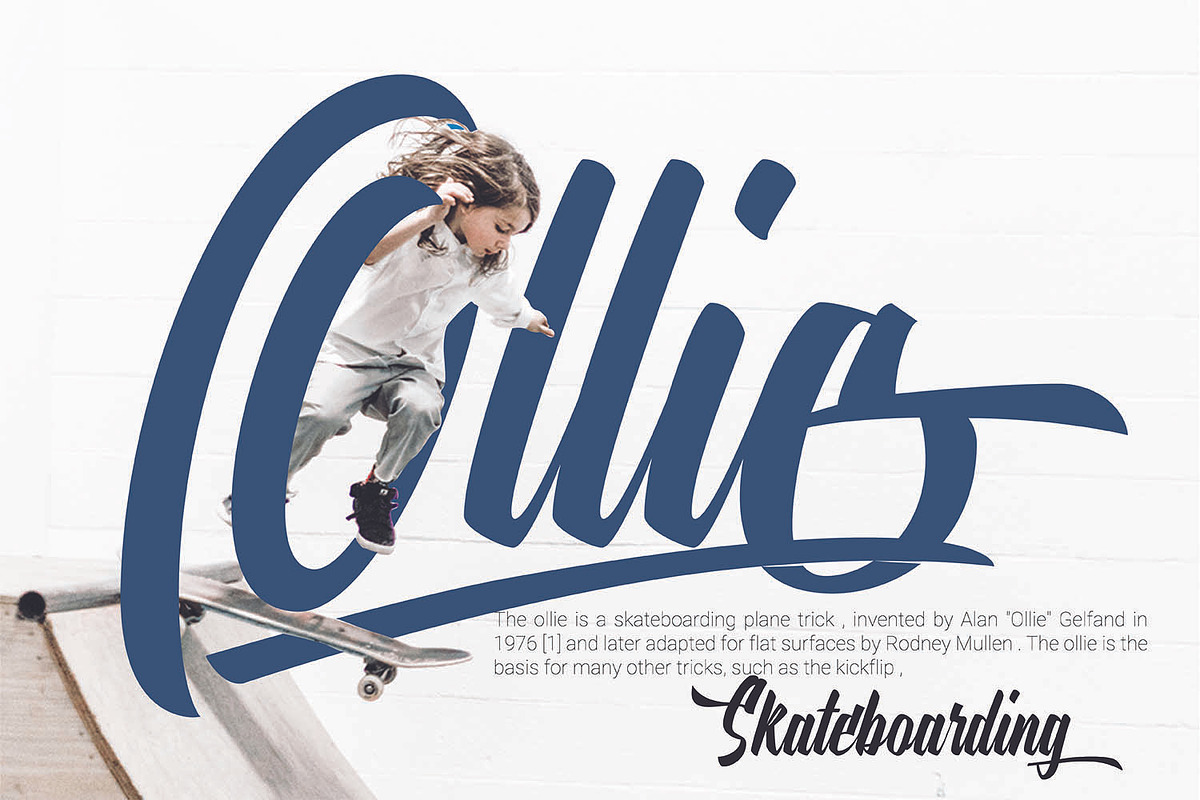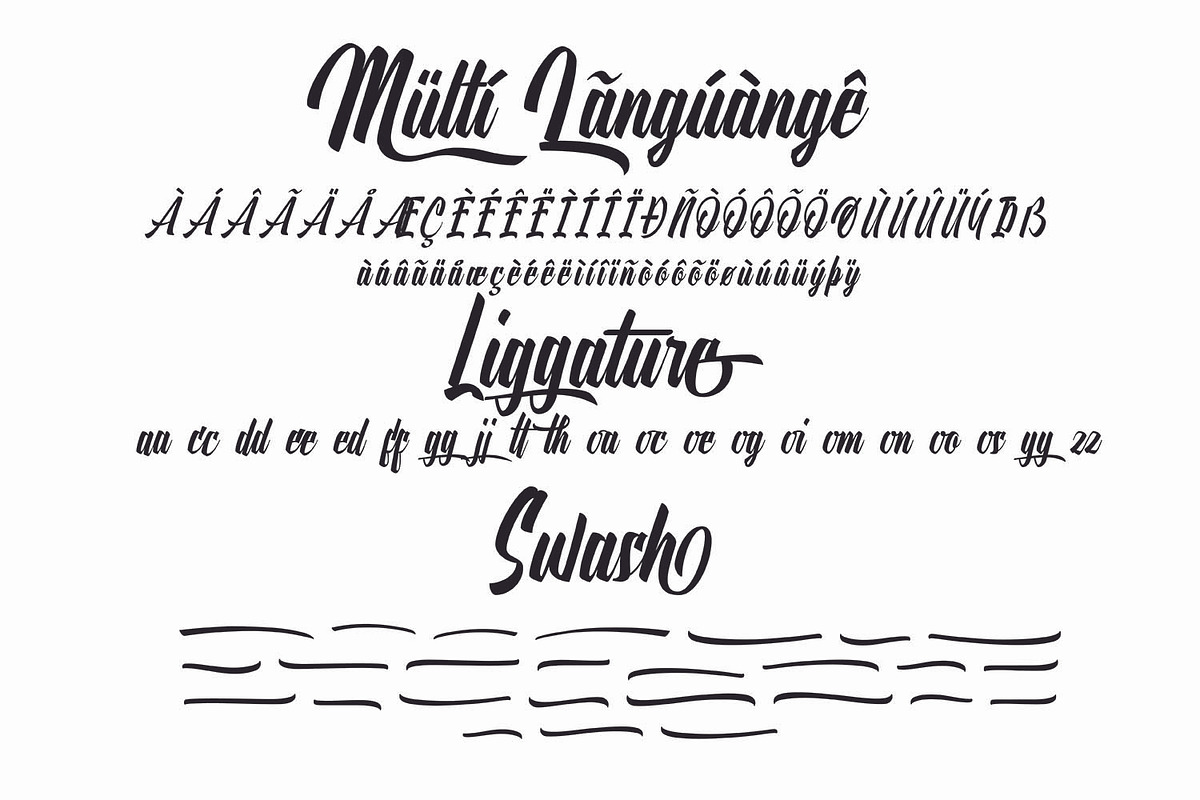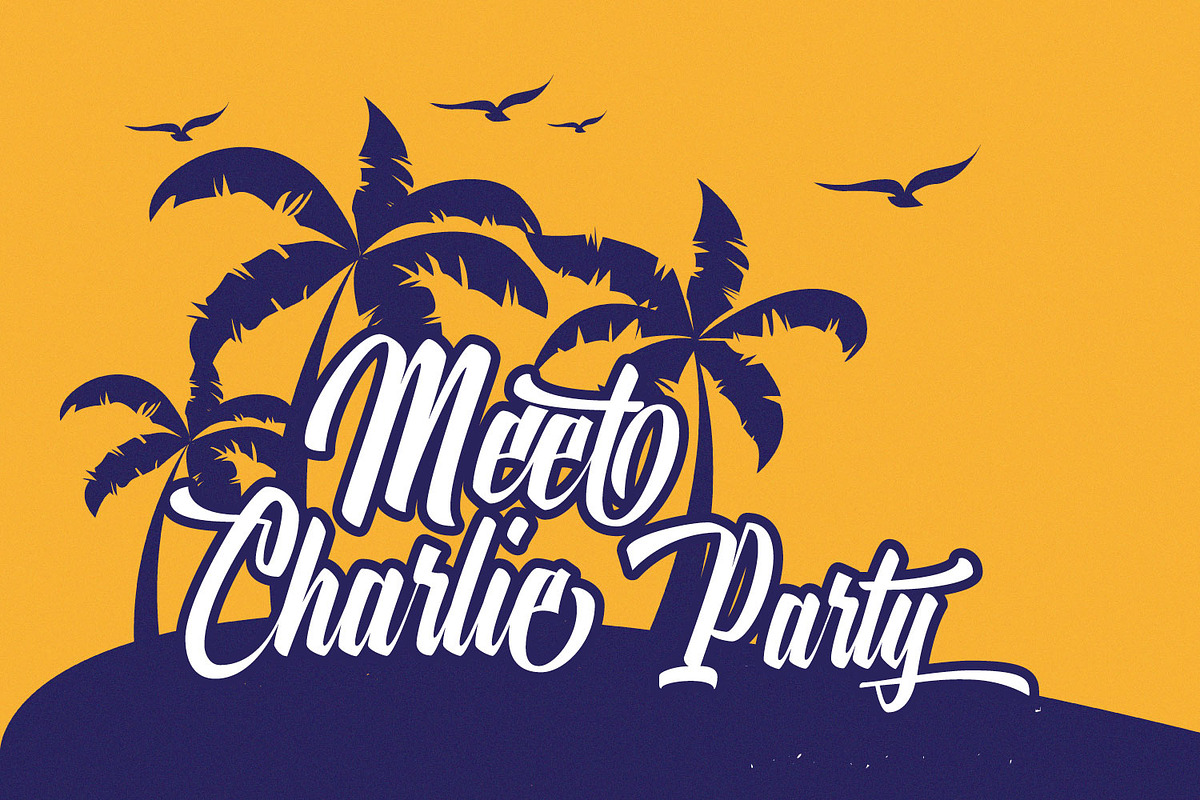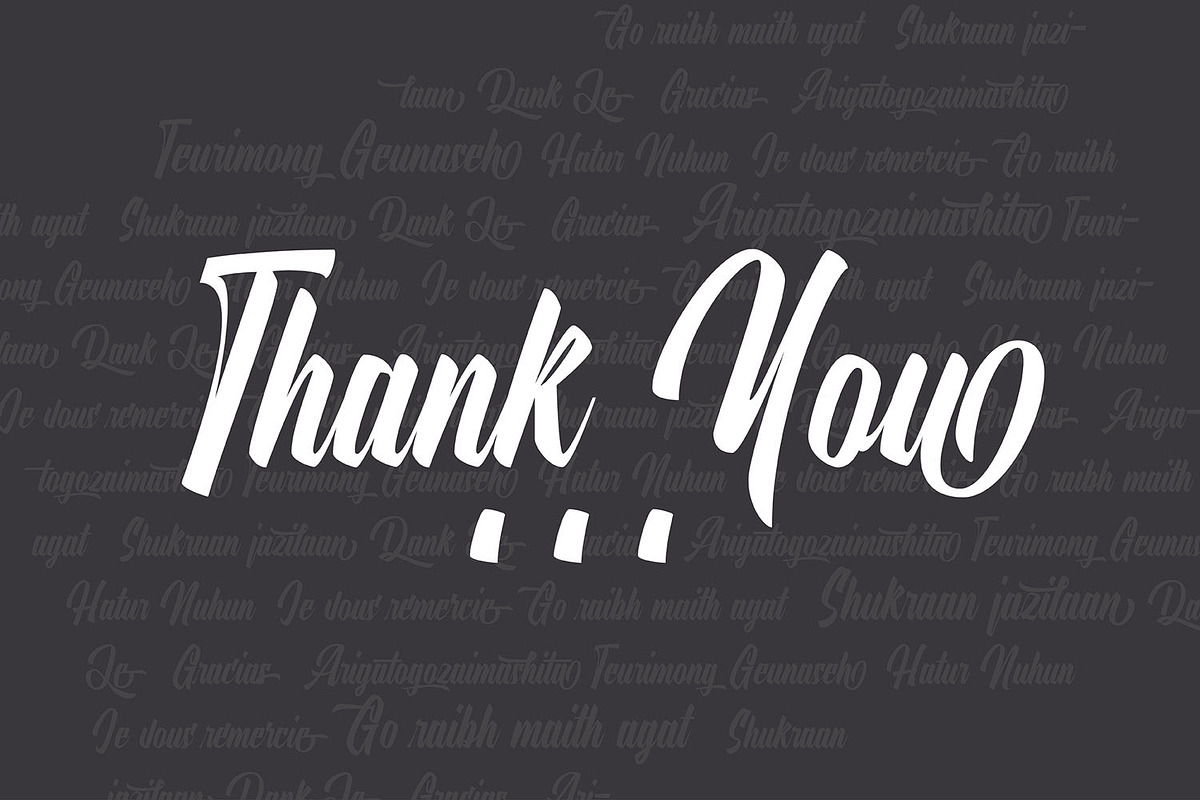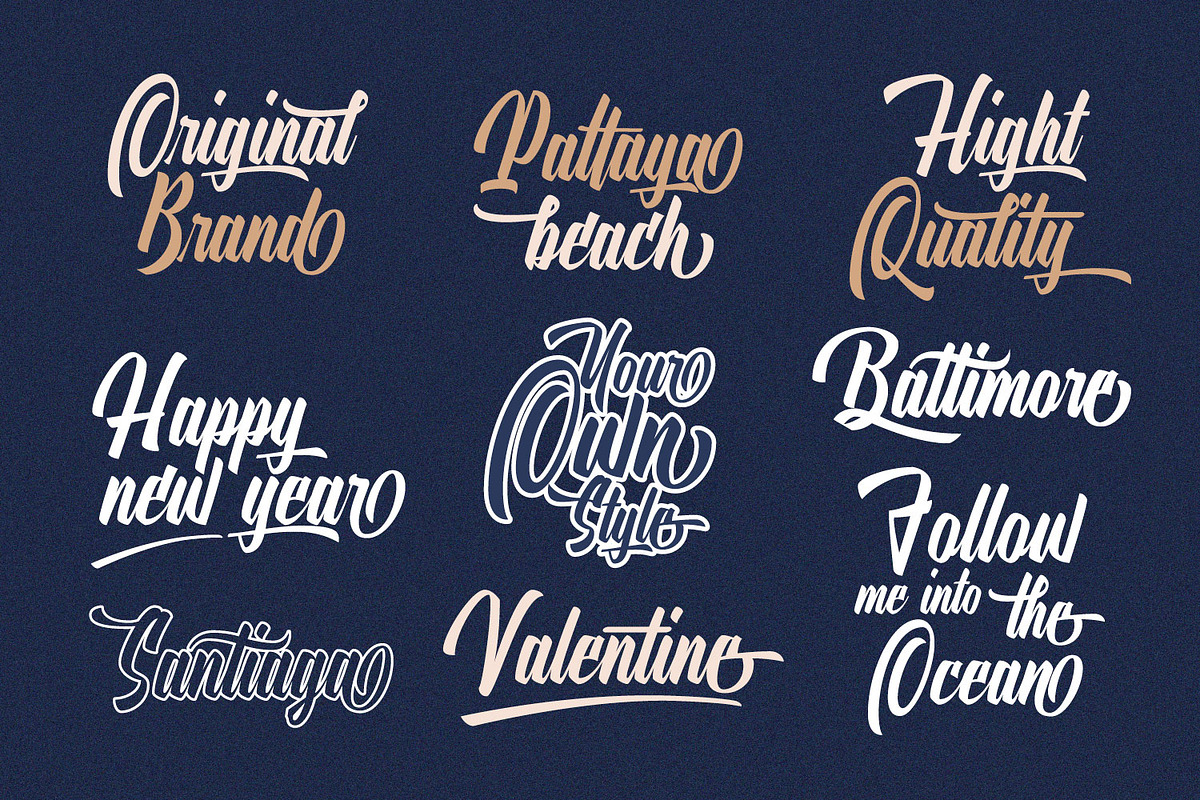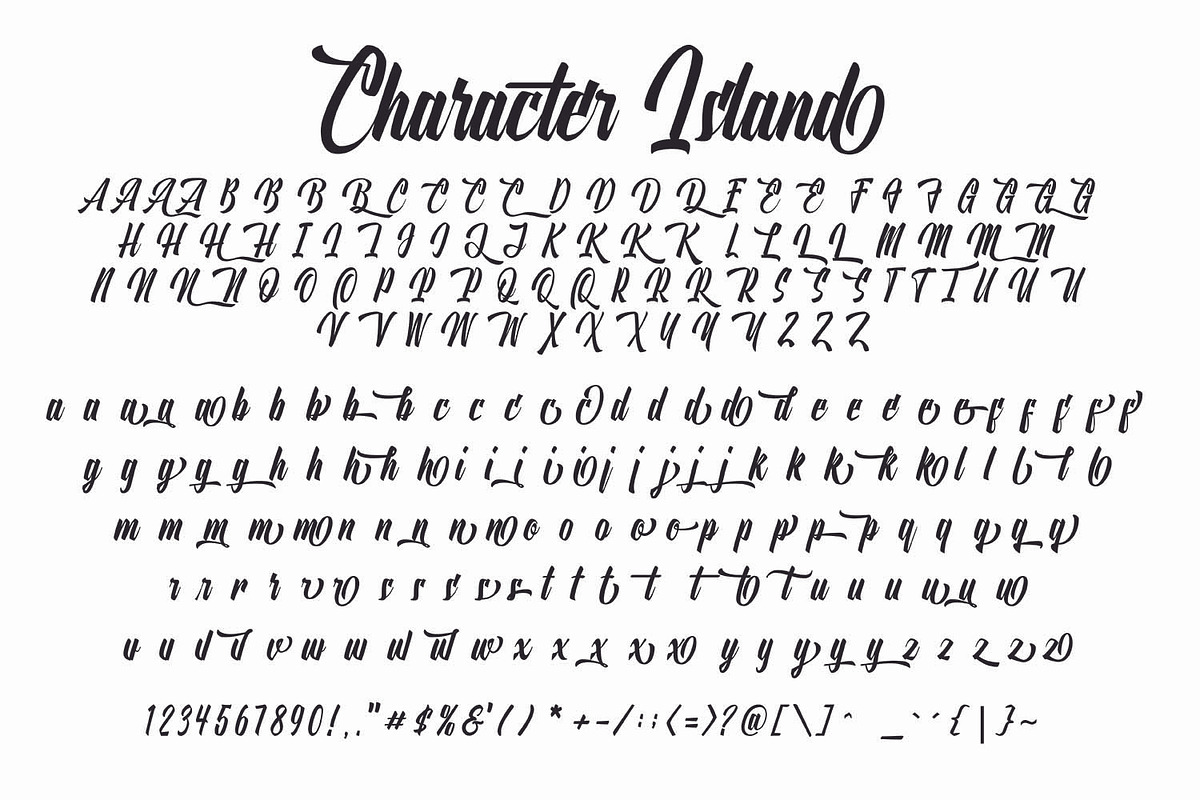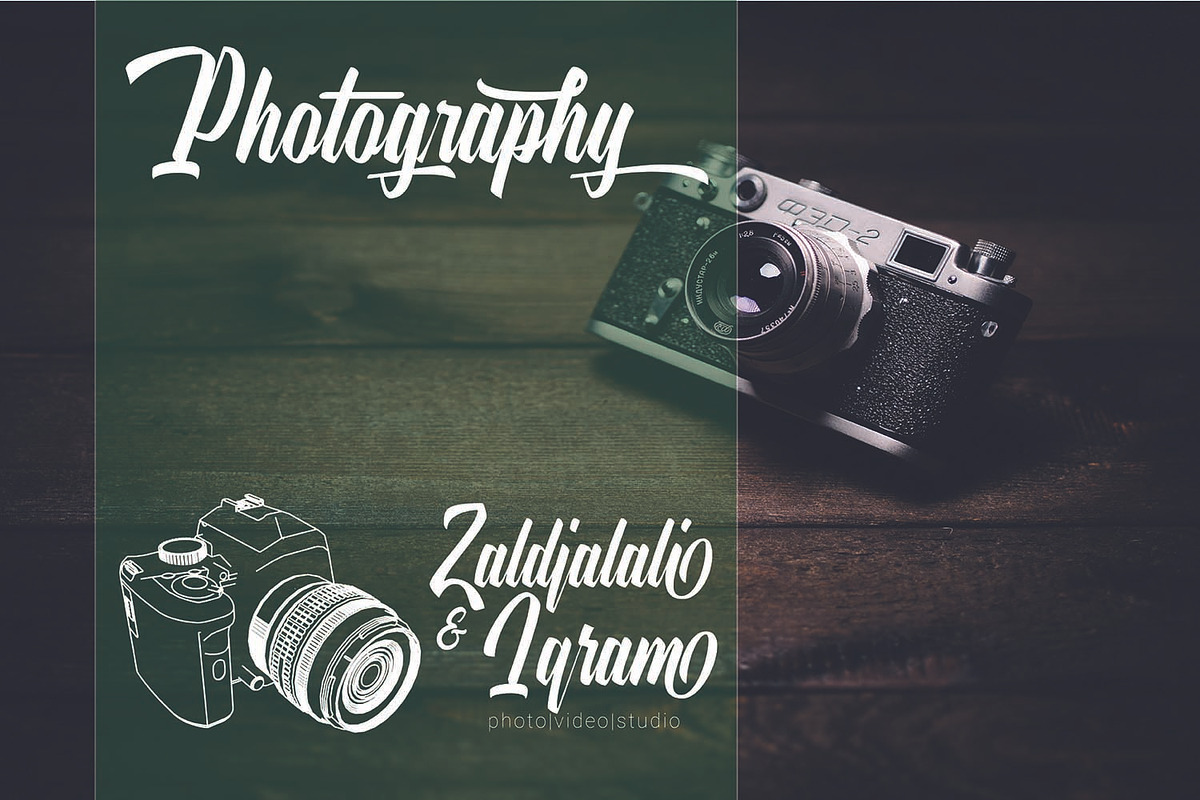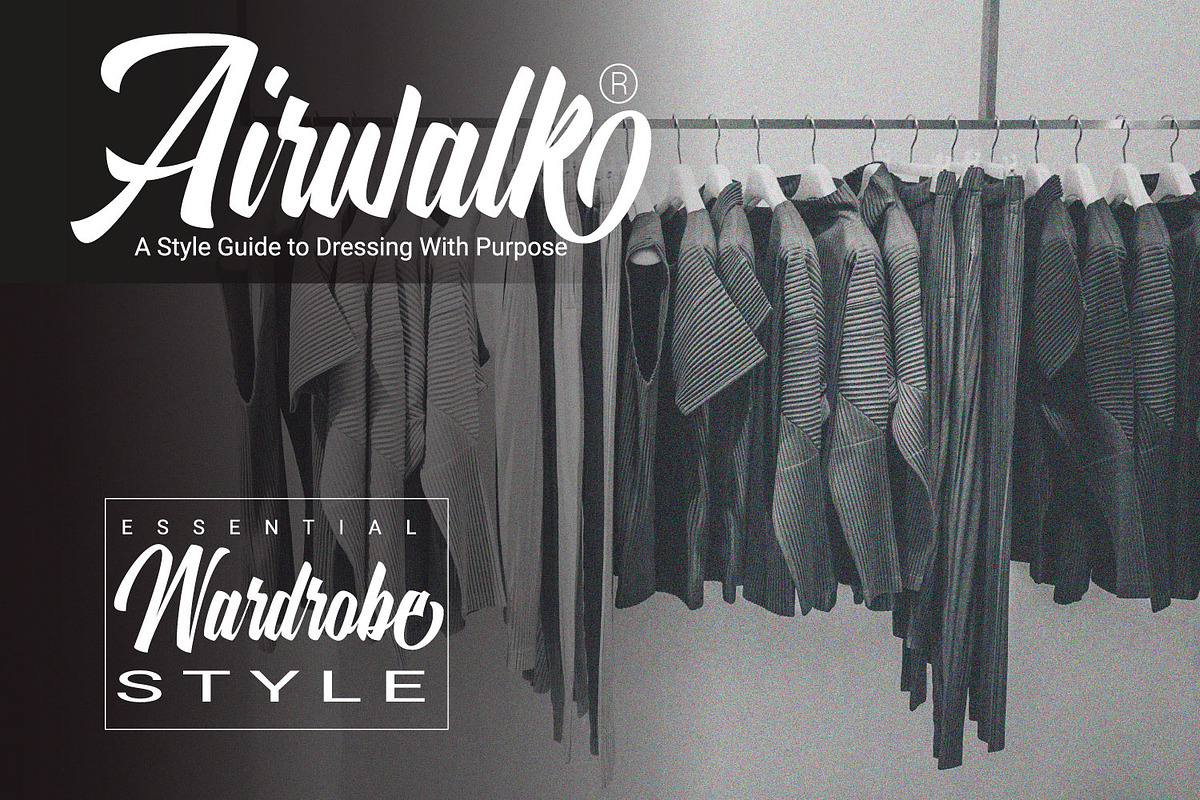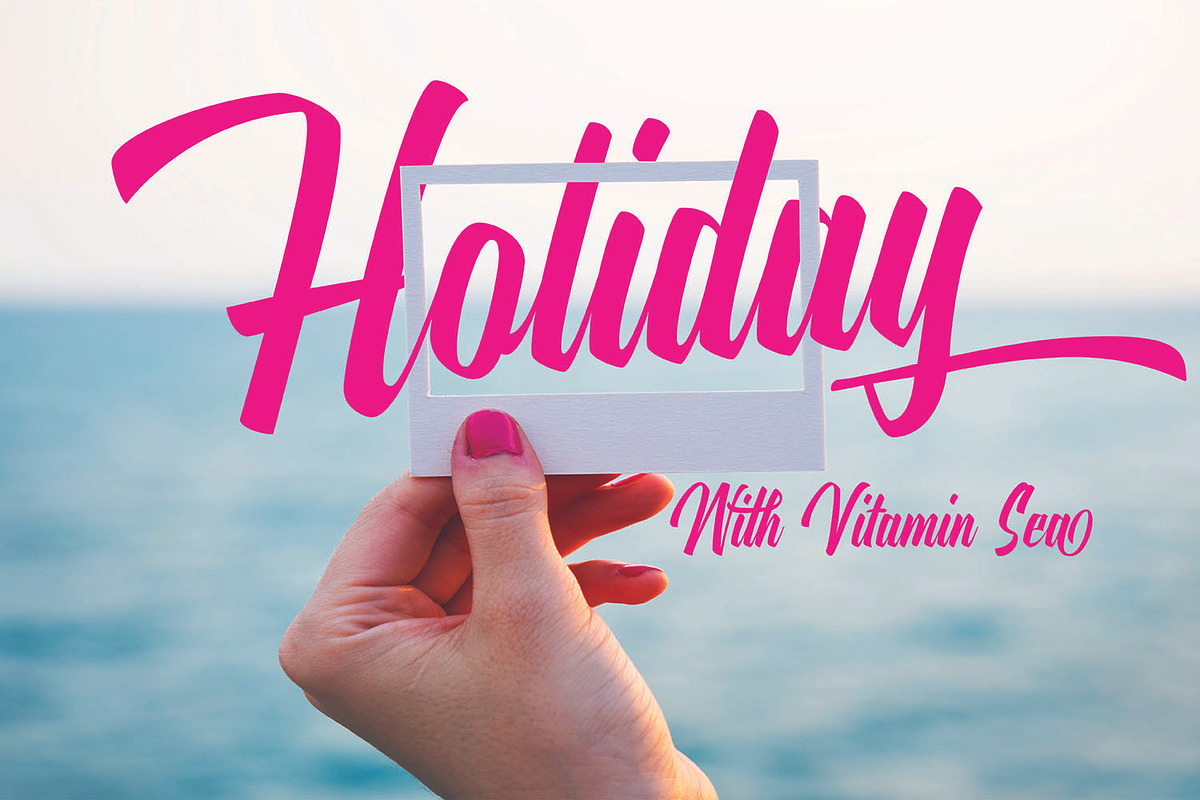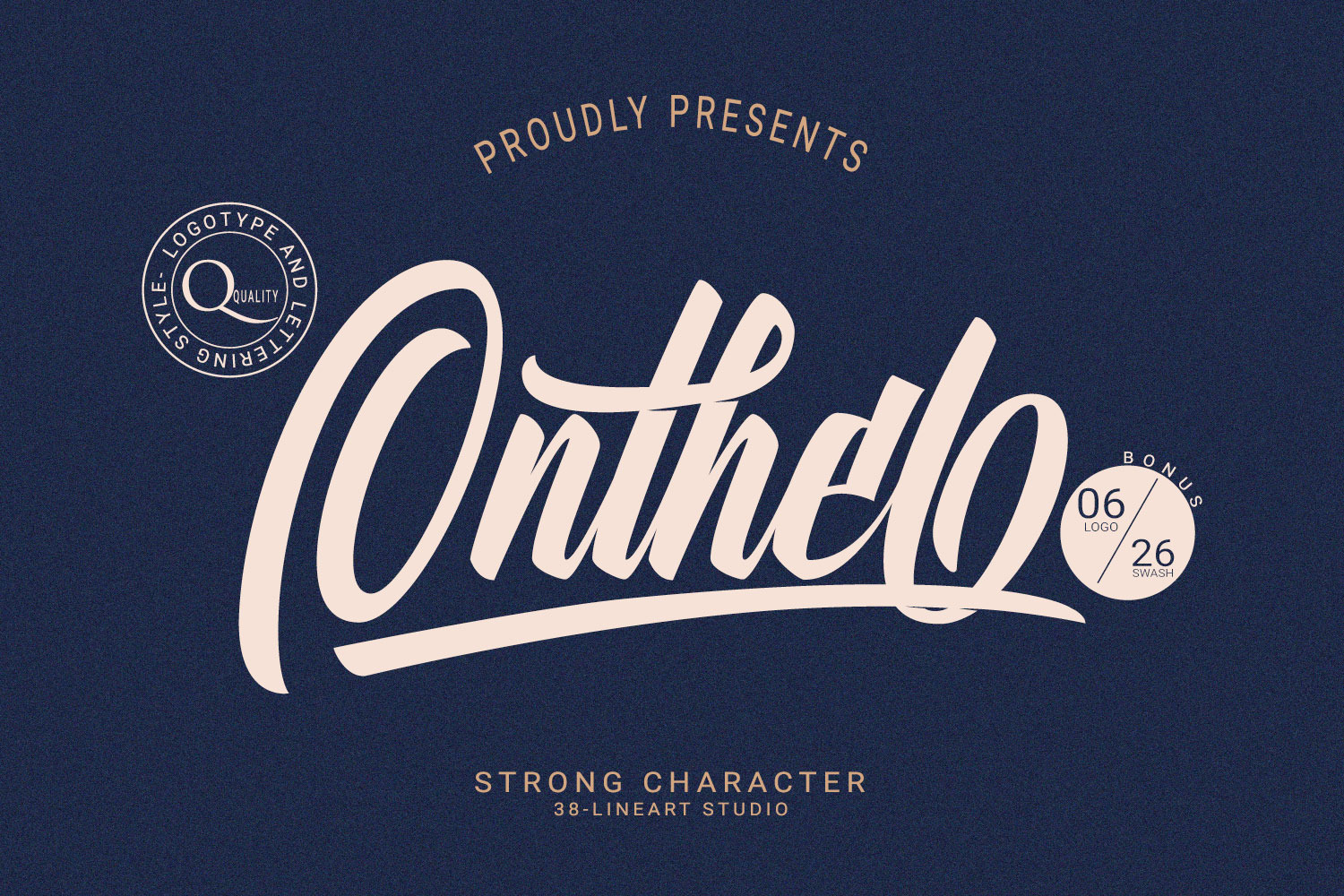
Onthel - Logotype brush font
Onthel is a bold-script with a touch of rhythmic brush that is very charming and has character. It was inspired by Onthel Bicycles, which is a Dutch design bicycle that is characterized by an upright sitting position and has a very strong and high-quality reputation. This font is a good choice for your logotype and lettering craft.